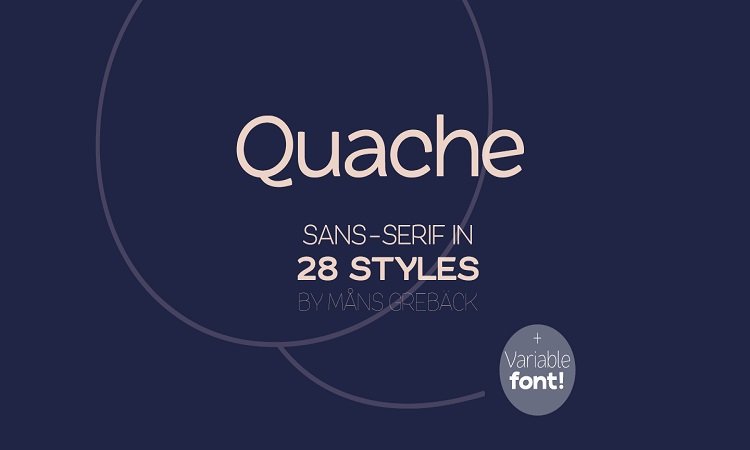
Quache Sans Serif Font Family
Quache Font is a beautiful and professional sans serif typeface, which contains six weights and It features unique and modern sans serif look and feel. Perfect for gorgeous logos, titles, web layouts and branding.
It looks gorgeous in all caps with a wide-set spacing if you want to try a classy look, or beautiful on its own in capital and lowercase letters for something completely timeless.